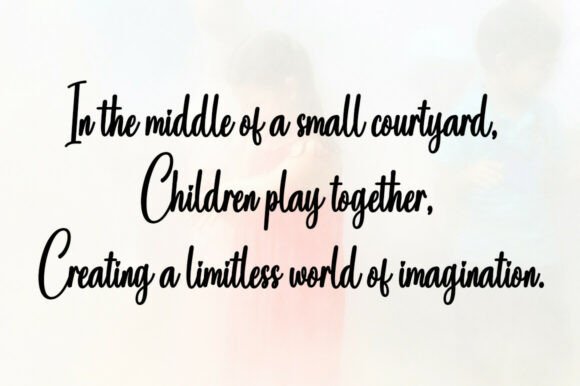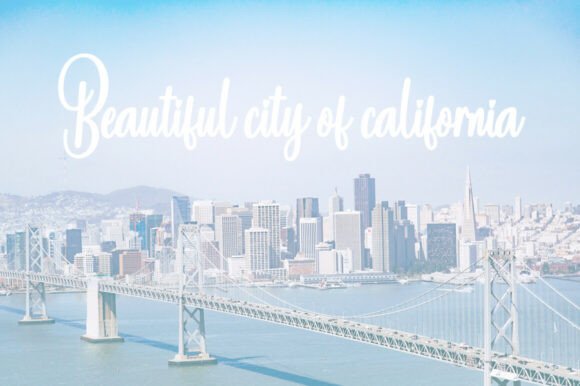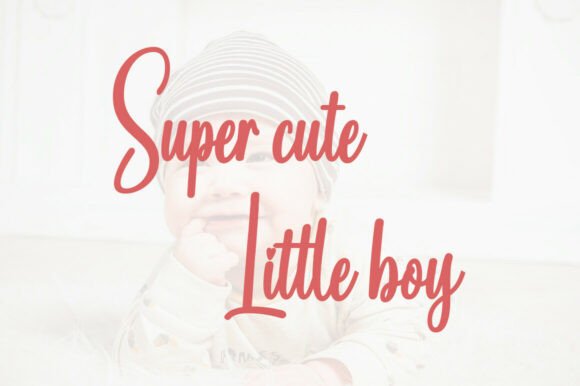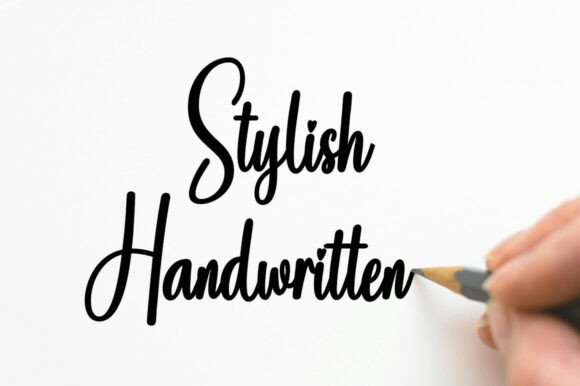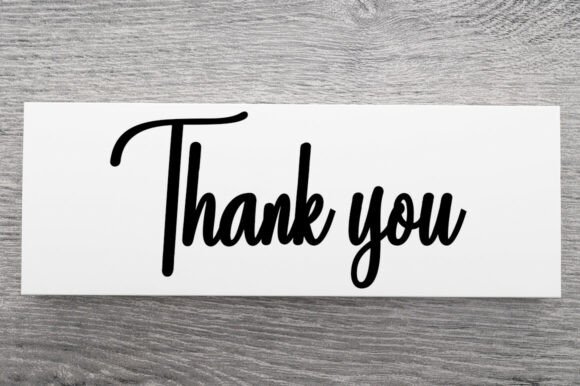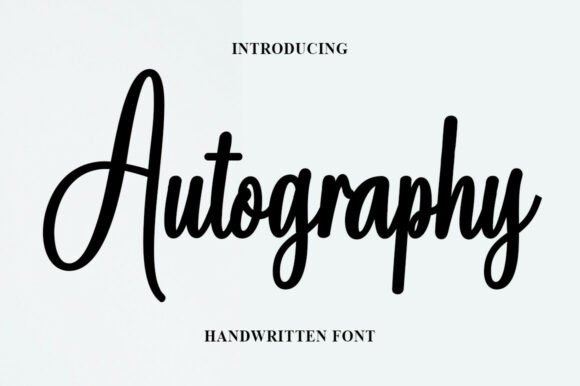
The Autography Font: A Sweet and Elegant Addition to Your Design Projects
I’ll never forget the time I was working on a wedding invitation design project, and my client asked me to create a custom font that would match the romantic and whimsical feel of their special day. I spent hours scouring the internet for the perfect font, but nothing seemed quite right. That’s when I stumbled upon the Autography font, and it instantly became my go-to choice. In this article, I’ll share with you why I love this font, its features, and how to make the most of it in your design projects.
An Honest Review of Autography Font
What I Love About Autography Font
- ✨ Sweet and cursive handwritten feel: Autography font has a gentle, flowing quality that adds a touch of elegance to any design project.
- ✅ Versatile: This font is perfect for a wide range of design ideas, from branding and logos to wedding invitations, greeting cards, and marketing promotions.
- 💕 Romantic and joyful: Autography font has a way of making your designs feel more personal and emotional, perfect for creating a connection with your audience.
While Autography font is an excellent choice for many design projects, there are a few things to keep in mind:
- 🤔 Limited use in body text: Due to its cursive nature, Autography font may not be the best choice for long blocks of body text. It’s better suited for headings, titles, and short paragraphs.
- ⚠️ Requires attention to kerning: As with any script font, it’s essential to pay attention to kerning to ensure that the letters flow smoothly and evenly.
- Experiment with OpenType features, such as Stylistic Alternates and Glyphs, to add more variety to your design.
The Story Behind Autography Font
Autography font was designed by a talented type designer who wanted to create a font that would capture the essence of handwritten elegance. Inspired by the flowing scripts of the past, Autography font was crafted to bring a touch of sophistication and whimsy to design projects. Whether you’re a designer, crafter, or creative hobbyist, Autography font is sure to become a favorite in your font collection.
Q: What type of projects is Autography font best suited for?
A: Autography font is perfect for a wide range of design projects, including branding, logos, wedding invitations, greeting cards, fashion, and marketing promotions.
Q: Is Autography font suitable for body text?
A: While Autography font is beautiful, it’s not ideal for long blocks of body text. It’s better suited for headings, titles, and short paragraphs.